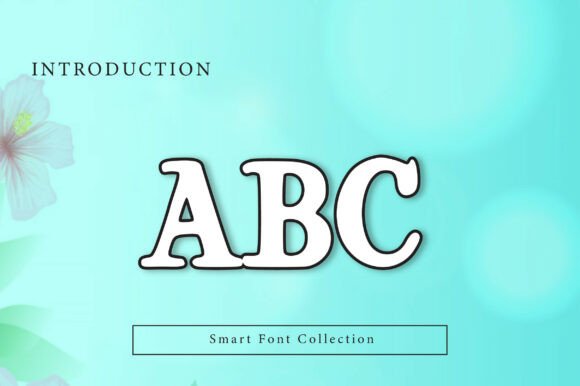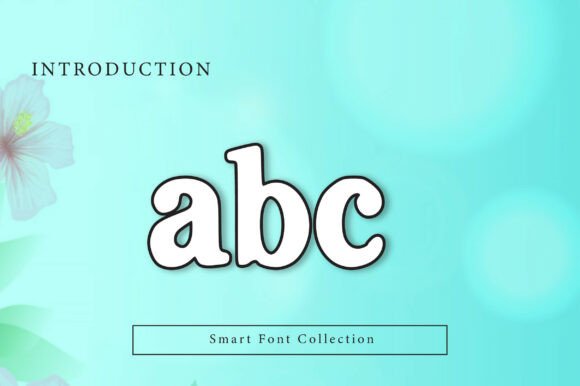
Introducing Heavique Font: The Ultimate Bold and Modern Display Font
In the world of typography, a bold and modern font can make all the difference in creating a lasting impression. Heavique font is a high-impact display font designed to deliver strong typography and powerful branding. With its thick strokes, solid letterforms, and confident contemporary style, Heavique is the perfect choice for designers and crafters looking to make a statement.
The Power of Heavique Font
Heavique font is specifically designed for projects that require bold, attention-grabbing titles and clean, heavy typography. Its unique features make it an ideal choice for a variety of applications, including headlines, logos, posters, packaging, signage, streetwear designs, advertising, and social media graphics. Whether you’re working on a modern project that requires a strong visual impact or looking to create a lasting impression, Heavique font is the perfect solution.
Key Features of Heavique Font
- Thick Strokes: Heavique font features thick strokes that provide a solid and confident look, making it perfect for headlines and titles.
- Solid Letterforms: The font’s solid letterforms ensure maximum readability, even at large sizes, making it ideal for posters, signage, and other display applications.
- Confident Contemporary Style: Heavique font boasts a modern and contemporary style that is sure to grab attention and leave a lasting impression.
- Maximum Readability: The font’s clean and simple design ensures maximum readability, making it perfect for a variety of applications, from advertising to social media graphics.
- Visual Strength: Heavique font delivers maximum visual strength, making it ideal for projects that require a bold and attention-grabbing typography.
Use Cases for Heavique Font
Heavique font is versatile and can be used in a variety of applications, including:
- Headlines and Titles: Use Heavique font to create bold and attention-grabbing headlines and titles that are sure to grab attention.
- Logos and Branding: Heavique font is perfect for creating strong and memorable logos and branding materials that make a lasting impression.
- Posters and Flyers: Use Heavique font to create eye-catching posters and flyers that are sure to stand out.
- Packaging and Signage: Heavique font is ideal for packaging and signage applications where bold and attention-grabbing typography is required.
- Streetwear Designs: Heavique font is perfect for streetwear designs, including t-shirts, hats, and other apparel.
- Advertising and Social Media Graphics: Use Heavique font to create bold and attention-grabbing advertising and social media graphics that are sure to grab attention.
Why Choose Heavique Font?
Heavique font is the perfect choice for designers and crafters looking for a bold and modern display font that delivers strong typography and powerful branding. With its unique features, versatility, and maximum readability, Heavique font is sure to become a go-to font for any project that requires bold and attention-grabbing typography.
In conclusion, Heavique font is a powerful and modern display font that is perfect for designers and crafters looking to create bold and attention-grabbing typography. With its thick strokes, solid letterforms, and confident contemporary style, Heavique font is sure to deliver maximum readability and visual strength, making it ideal for a variety of applications. Whether you’re working on a modern project or looking to create a lasting impression, Heavique font is the perfect solution.